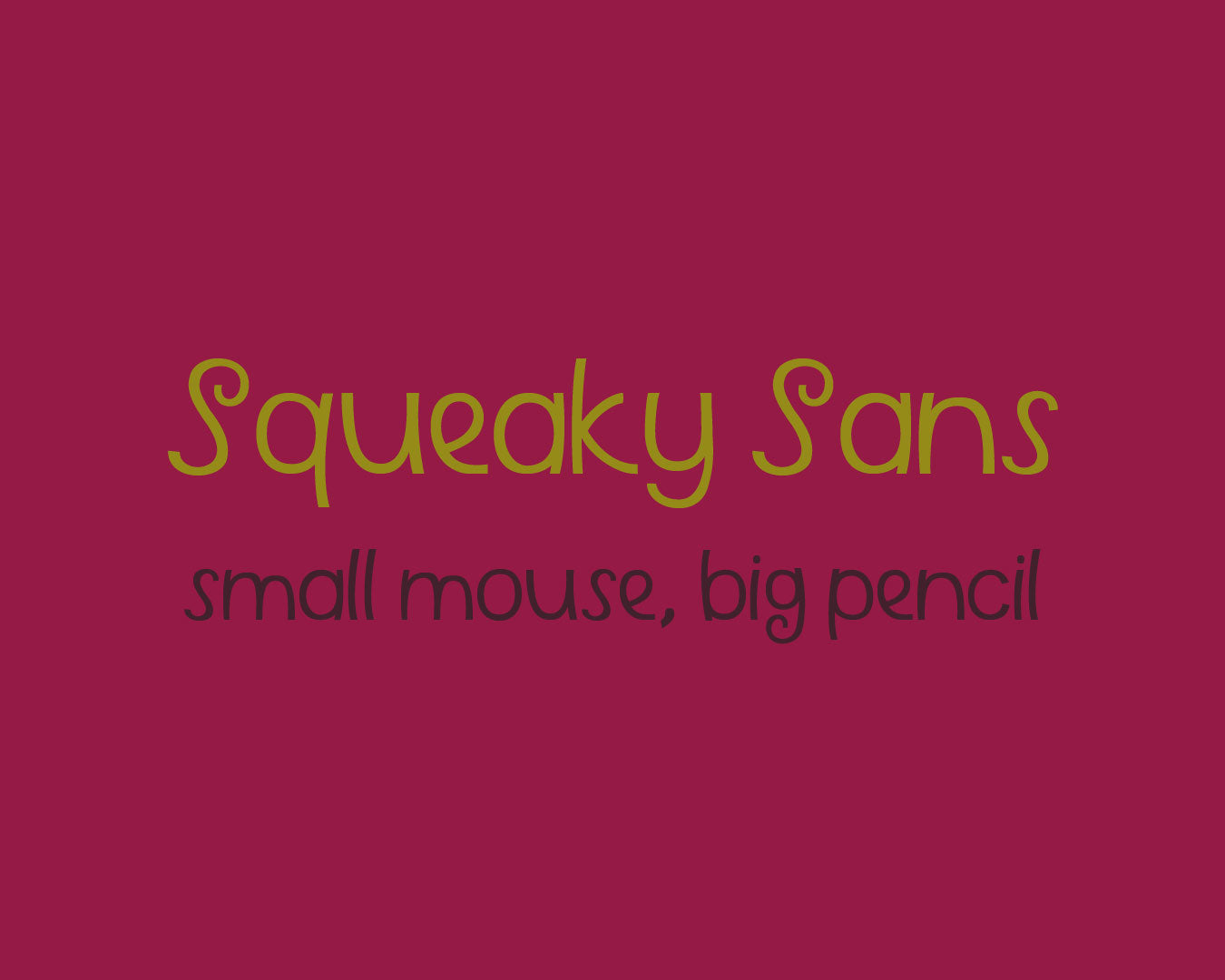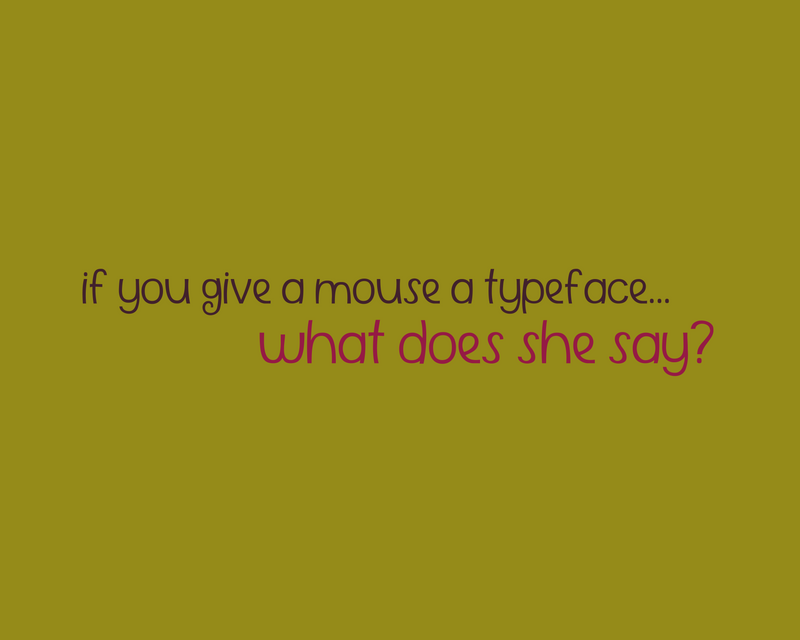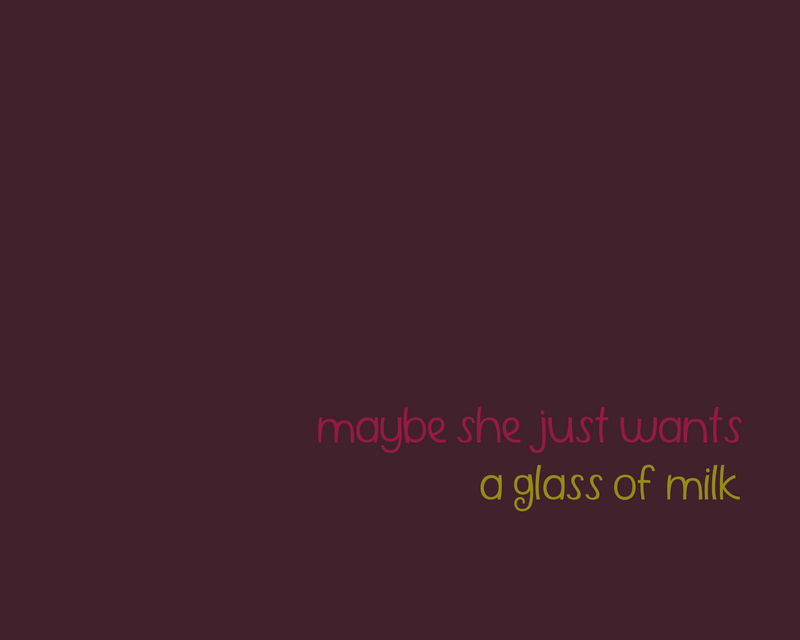
Squeaky Sans
Anything but mousey, Squeaky Sans makes noise in any project. Eager and open, this typeface shines through energetic shapes and unique strokes.